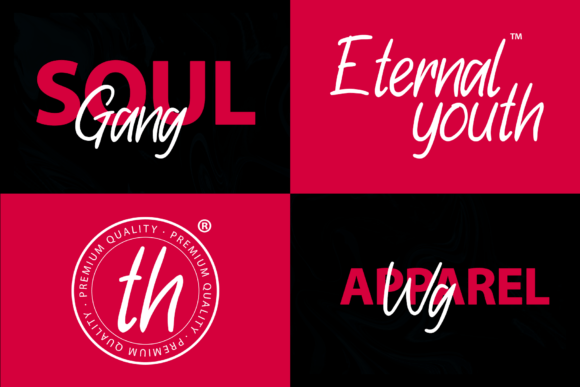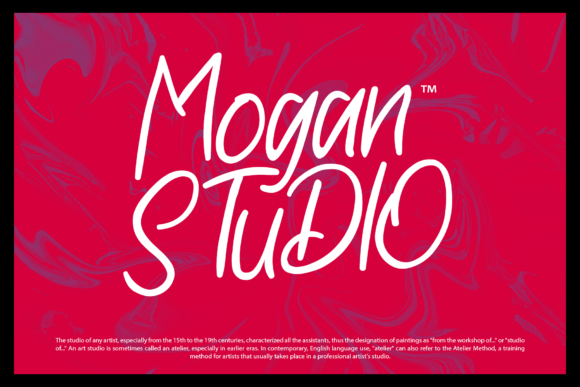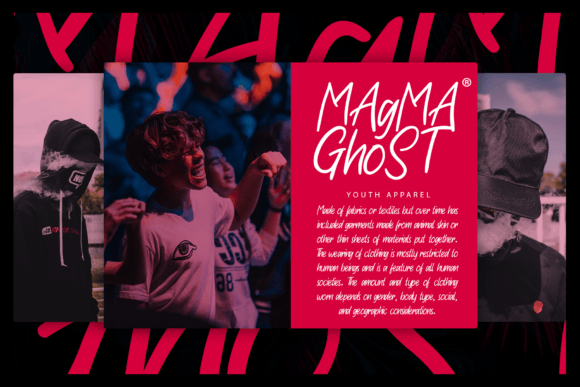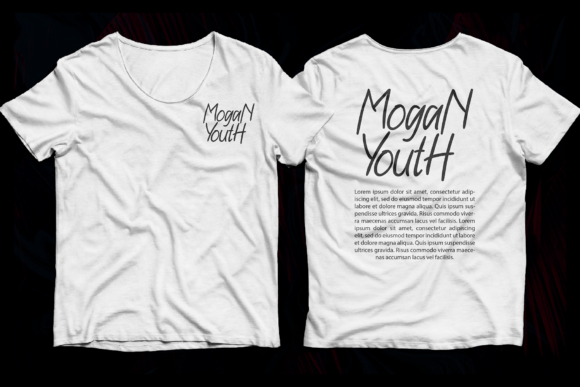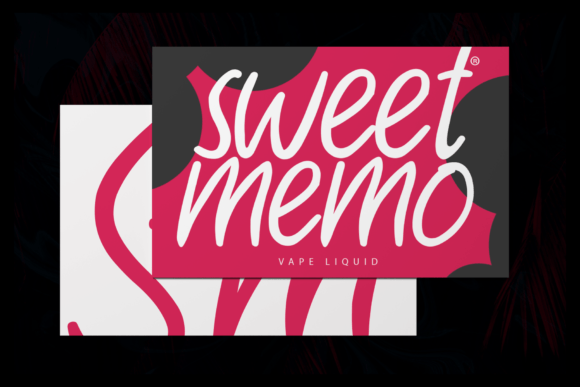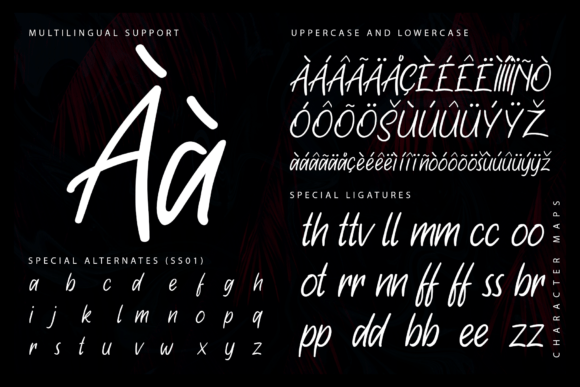
Bring Your Ideas to Life with Handwritten Font
Remember that moment when a spark of creativity hit you, and you knew exactly how to bring your idea to life? The blank page stared back at you, waiting for your brushstrokes, words, or designs to breathe life into it. For designers, this moment is a regular occurrence, and having the right tools can make all the difference.
Enter the Handwritten Font, a minimalist and neat handwritten font that can elevate your projects to the next level. With its versatility and PUA encoding, you can access a vast array of glyphs and ligatures to match your unique style. Whether you’re working on a logo, brochure, or social media campaign, this font is sure to bring a touch of personality to your work.
Key Features of Handwritten Font
- Unique Characteristics: The handwritten font features a unique, cursive design with subtle imperfections, giving it a personal and artistic feel.
- Language Support: The font supports a wide range of languages, including Latin, Cyrillic, and Greek, making it suitable for multilingual designs.
- Font Weight and Style: The font family includes light, regular, bold, and italic styles, allowing designers to create a range of visual effects.
Handwritten Font Review
Overall, I’m quite fond of the Handwritten Font. It has a ✨ unique charm that can add a touch of personality to any design project. The font’s imperfections and quirks give it a human-like feel, making it perfect for creative and artistic applications.
The font’s versatility is also a major plus. It works well in a variety of contexts, from heading to body text, and can be used in both digital and print media. The font’s size and weight can be easily adjusted to suit different design needs.
- ✨ Unique charm and personality
- ✨ Versatility in different design contexts
- ✨ Easy to adjust size and weight
- ⚠️ May not be suitable for formal or professional designs
- ⚠️ Can be difficult to read in certain font sizes or weights
- ⚠️ Limited character set may cause compatibility issues in some software
Overall, the Handwritten Font is a great addition to any designer’s toolkit. While it may have some limitations, its unique charm and versatility make it a great choice for creative and artistic projects.